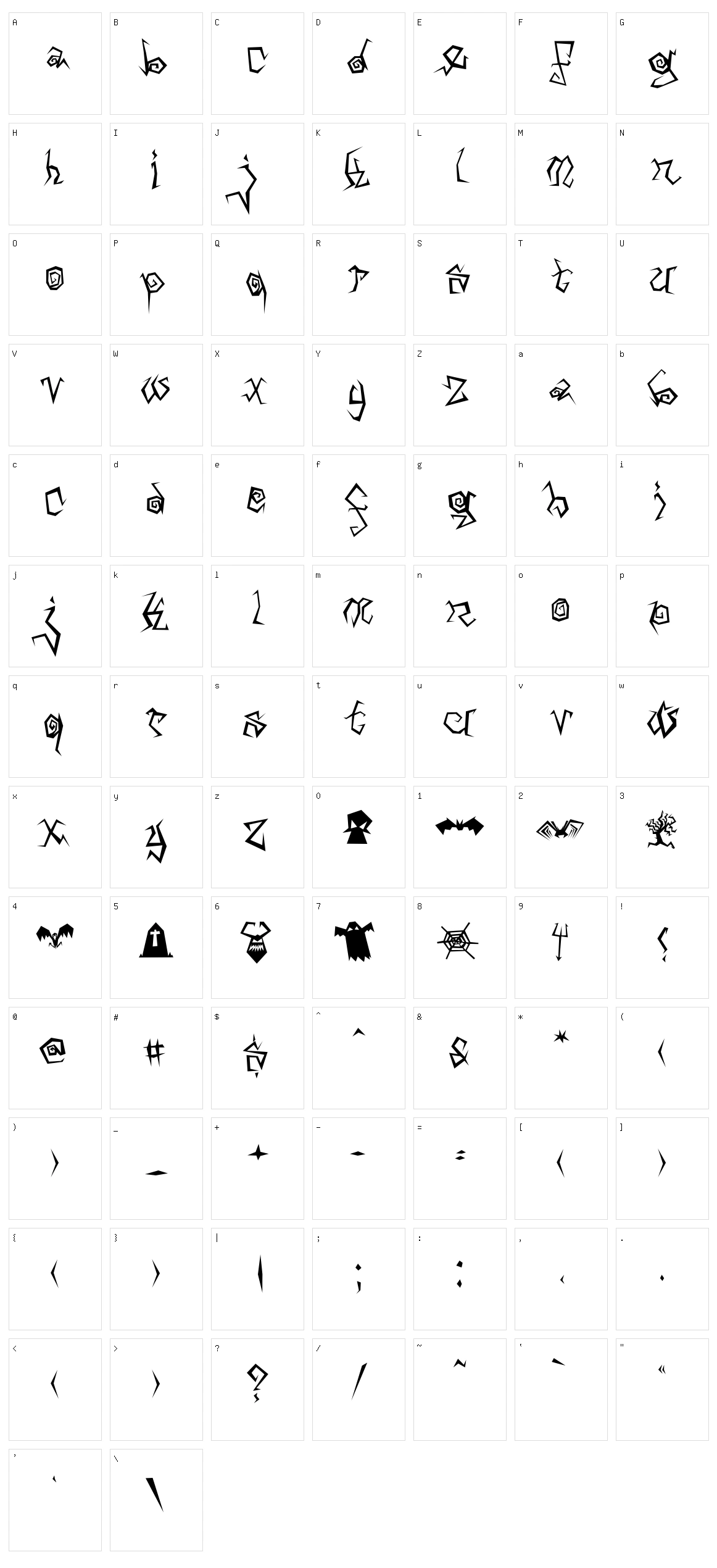
The free font Arachnids is carefully designed by Mans Greback, showcasing a thoughtful balance of creativity and usability and falls under the Halloween font style. When you download the ZIP file, it contains only 153.02 KB of font files, making it lightweight and quick to download. Please review the license details below to understand permitted usage and distribution rights. If license information is not available, we recommend using this font for personal projects only or contacting the author directly for commercial usage permissions.